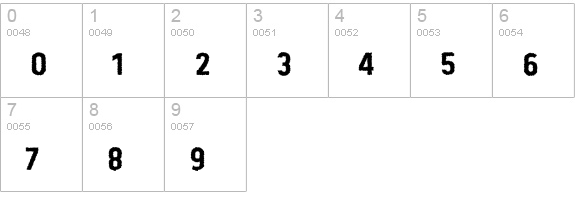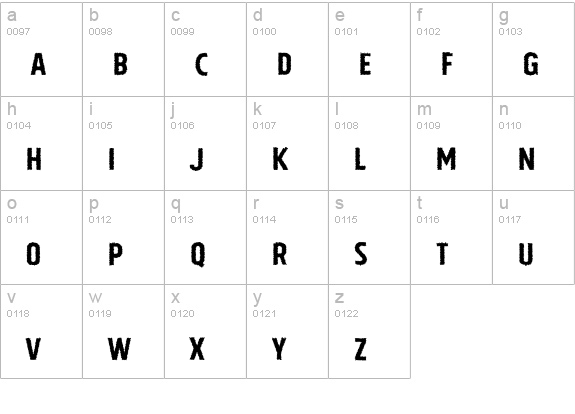
Tolyer X Monster Font Details
Introducing the captivating and eye-catching Tolyer X Monster font, a unique and playful typeface that is sure to make your designs stand out. This font features quirky, monster-inspired characters that are perfect for adding a touch of fun and whimsy to your projects. What sets Tolyer X Monster font apart is its bold and energetic style, making it ideal for a variety of creative applications such as posters, branding, packaging, and more. Whether you're looking to add a touch of personality to your designs or create something truly one-of-a-kind, this font is sure to inspire your creativity. The best part? Tolyer X Monster font is available for free download at FontsMarket.com, so you can start using it in your projects right away. Don't miss out on this exciting and versatile font that will bring a playful element to your designs. Download Tolyer X Monster font today and let your creativity run wild!